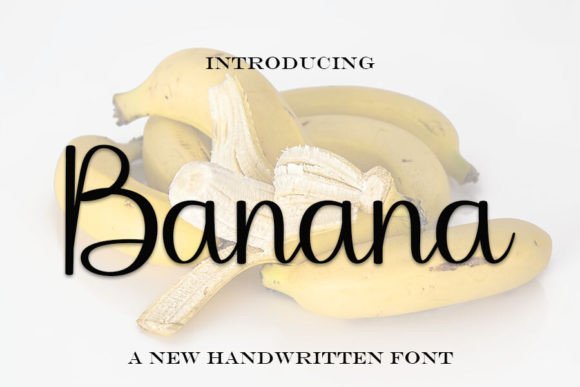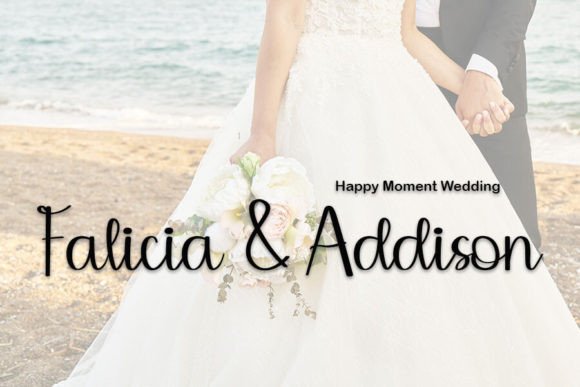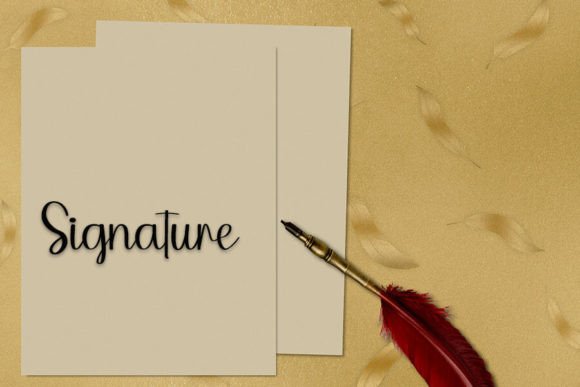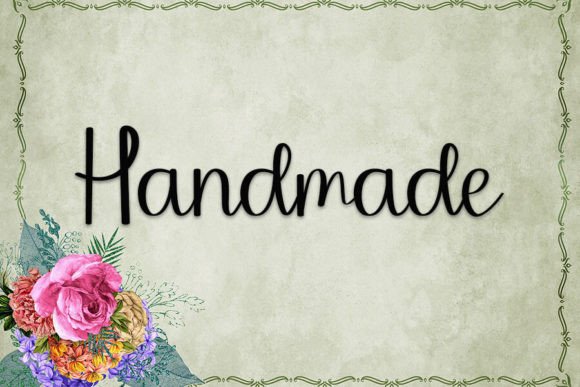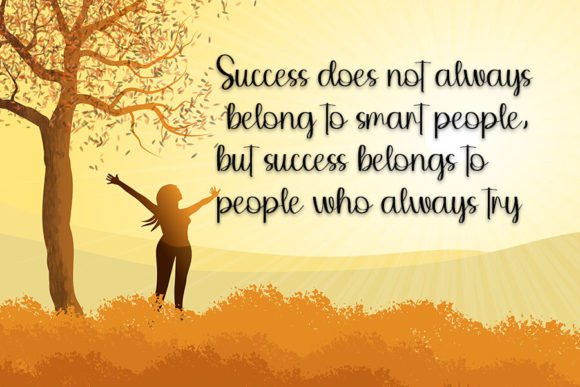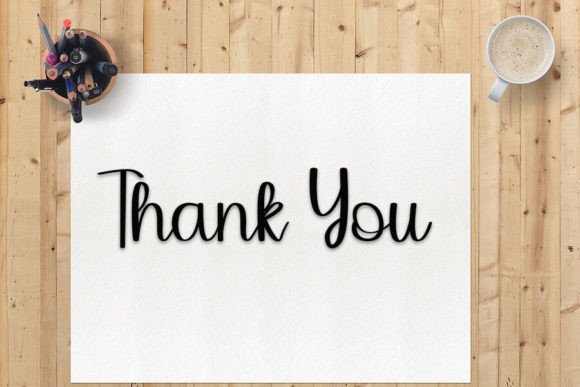
The Perfect Blend of Creativity and Style: Introducing Banana Font
Remember that moment when you’re brainstorming ideas for a new project, and suddenly a spark of creativity hits you? The room is filled with inspiration, and you can’t wait to bring your vision to life. For designers, this feeling is a familiar sensation, and it’s exactly what drives us to find the perfect tools to enhance our creations. That’s where Banana Font comes in – a stylish handwritten font that adds a touch of elegance and sophistication to any project.
With Banana Font, you’ll have access to a wide range of glyphs and ligatures that can be easily accessed through its PUA encoding. This means you can experiment with different combinations and styles to create unique and eye-catching designs. Whether you’re working on a logo, a brochure, or a website, Banana Font is the perfect addition to your design toolkit.
Banana Font Key Features
- Font Style: The Banana Font is a sans-serif, playful, and cursive script font.
- Unique Characteristics: Features a unique blend of banana-like curves and rounded edges, giving it a fun and whimsical feel.
Designer Review: Banana Font
Overall, I have mixed feelings about the Banana Font. Here are my thoughts:
- ✨ The font’s playful and quirky personality shines through in its unique character designs. Each letter is a delight to look at, making it perfect for a children’s book or a fun, casual project.
- ✨ The Banana Font is highly legible, even at smaller sizes. The clear lines and rounded edges make it easy to read, even for those with visual impairments.
- ✨ The font’s versatility is a major plus. It comes in a range of weights, from light to bold, allowing designers to experiment with different styles and moods.
- ⚠️ The Banana Font may not be the best choice for formal or professional projects. Its playful nature may come across as unprofessional or immature in certain contexts.
- ⚠️ The font’s lack of sophistication may also make it less suitable for projects that require a more elegant or refined look.
Overall, I think the Banana Font is a fun and engaging font that can add a lot of personality to a project. However, its limitations should be carefully considered before using it in a formal or professional setting.
Banana Font is commonly used in:
- Social media graphics and posters.
- Custom logos and branding materials.
- Engaging presentations and documents.